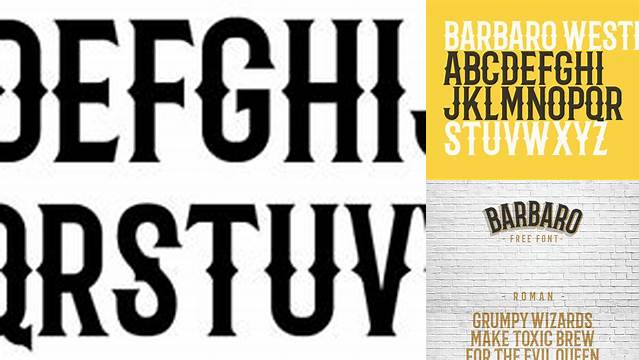
Hey there, font enthusiasts! Are you looking to infuse your projects with the rugged charm of the Wild West? Look no further! The Barbaro Western font is your ticket to capturing that authentic, vintage vibe. In this article, we'll delve into everything you need to know about this captivating typeface, including where to find it for free and how to make the most of its unique character.
What is the Barbaro Western Font?
The Barbaro Western font is a distinctive typeface that embodies the spirit of the American West. Think dusty saloons, weathered wanted posters, and the clatter of spurs on a wooden floor – that's the essence of Barbaro. Its bold, slightly distressed letterforms evoke a sense of history and adventure, making it an ideal choice for projects that aim to capture a rustic, vintage feel. This font often features spurs, serifs, and other design elements that are reminiscent of old western signage and branding.
The beauty of the Barbaro Western font lies in its ability to transport your audience to another time. Imagine using it for a logo for a whiskey brand, a poster for a country music festival, or even a title sequence for a Western-themed video game. The possibilities are endless! Its unique aesthetic can add a touch of authenticity and nostalgia to any project, setting it apart from the crowd. Moreover, the font’s strong visual presence ensures that your message is delivered with impact, grabbing attention and leaving a lasting impression. Whether you're designing for print or digital media, Barbaro Western can bring a sense of rugged elegance to your creations. Its versatility extends to various applications, including invitations, product packaging, and website headers. With its ability to evoke a sense of history and adventure, Barbaro Western is a valuable asset for designers looking to create memorable and impactful designs.
Key Characteristics of Barbaro Western Font
So, what makes the Barbaro Western font so special? Let's break down its key characteristics:
- Bold and Strong: The font features thick, commanding letterforms that demand attention.
- Distressed Texture: Many versions incorporate a slightly weathered or distressed appearance, adding to its vintage appeal.
- Serifs with Spurs: The serifs often include distinctive spurs or embellishments, reminiscent of old Western signage.
- Rustic Feel: Overall, the font evokes a sense of ruggedness, history, and adventure.
- Versatile Application: While perfect for Western-themed projects, it can also be used in other designs seeking a vintage or unique aesthetic.
These characteristics combine to create a typeface that is both eye-catching and evocative. The Barbaro Western font is not just a set of letters; it's a visual representation of a bygone era. Its bold and strong appearance makes it ideal for headlines and titles, ensuring that your message stands out. The distressed texture adds character and depth, making the font feel like it has a story to tell. The serifs with spurs are a signature element, giving the font a distinctive Western flair. Whether you're designing a logo, a poster, or a website, Barbaro Western can help you capture the essence of the Wild West. Its versatility allows it to be used in a variety of contexts, from branding to advertising. By understanding and leveraging these key characteristics, you can unlock the full potential of Barbaro Western and create designs that are both visually stunning and deeply meaningful.
Tips for Using Barbaro Western Font Effectively
Now that you've got your hands on the Barbaro Western font, let's talk about how to use it effectively. Here are a few tips to keep in mind:
- Pair it Wisely: Choose fonts that complement Barbaro's rustic aesthetic. Clean, sans-serif fonts can provide a nice contrast, while other vintage-inspired fonts can create a cohesive look.
- Use it Sparingly: Barbaro is a bold font, so it's best used for headlines, titles, or short blocks of text. Overusing it can make your design feel overwhelming.
- Consider the Context: Make sure the font fits the overall theme and message of your project. It's perfect for Western-themed designs, but it might not be appropriate for more modern or minimalist projects.
- Adjust the Spacing: Play around with the letter spacing and line height to achieve the desired look. A little extra spacing can help the font breathe and improve readability.